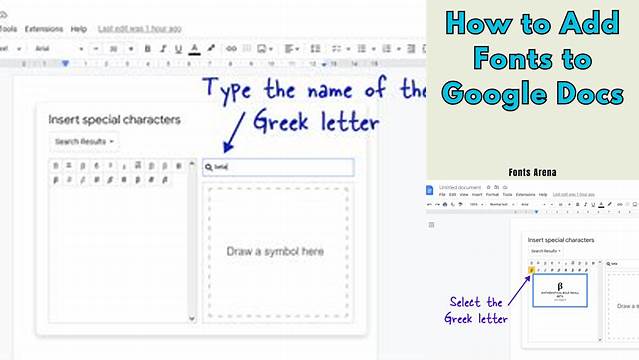
Greek Fonts In Google Docs: A How-To Guide
Hey guys! Ever needed to add a touch of ancient Greece to your Google Docs? Maybe you're writing a paper on the Odyssey, crafting a myth, or just want to spice up your document with some cool Greek-style fonts. Well, you're in luck! Google Docs makes it pretty easy to use Greek fonts, and I'm here to walk you through it. Let's dive in!
1. Understanding Greek Font Options in Google Docs
So, when we talk about Greek fonts in Google Docs, we're not just talking about one specific thing. There are a couple of ways to approach this. First, you could be looking for actual Greek alphabet fonts to write in the Greek language. Second, you might want fonts that look Greek – think decorative fonts with those classic, elegant vibes. Google Docs has options for both, so let's explore them. For those needing to write in actual Greek, Google Docs supports Unicode, meaning you can easily type in Greek using a Greek keyboard layout or character map. And for the aesthetically inclined, there are fonts that mimic Greek styles, perfect for headings, titles, or adding a thematic touch to your work. Understanding your needs is the first step in finding the perfect font.
2. How to Add Greek Letters Using Unicode
Adding Greek letters using Unicode is super straightforward. Unicode is a universal character encoding standard, meaning that pretty much every computer system recognizes it. Google Docs is no exception! To insert Greek letters, you've got a couple of options. The easiest way is to use the 'Insert special characters' feature. Go to 'Insert' > 'Special characters'. In the search box, type in the name of the Greek letter you need (like 'alpha,' 'beta,' 'gamma,' etc.). You'll see the letter pop up, and you can click it to insert it into your document. Another method is to use character codes. If you know the Unicode number for a particular Greek letter, you can type it in and then press Alt+X (or Option+X on a Mac) to convert it into the character. For example, typing '03B1' and then pressing Alt+X will give you the lowercase alpha (α). It might seem a bit technical at first, but once you get the hang of it, it's a very efficient way to add Greek letters to your document. Knowing these tricks can really save you time, especially if you're working with a lot of Greek text or mathematical symbols.
4. Using Special Characters for Greek Symbols
The 'Special characters' feature in Google Docs is a goldmine when you need Greek symbols. As mentioned before, navigating to 'Insert' > 'Special characters' opens up a world of possibilities. You can search for Greek letters by name, draw the symbol if you don't know the name, or even browse through categories. This is super helpful when you need to insert symbols like sigma (Σ), omega (Ω), or mu (Μ). The great thing about this feature is that it's built right into Google Docs, so you don't need to install anything or use external websites. Just a few clicks, and you've got your Greek symbol right where you need it. Plus, the search functionality is pretty robust, so you can usually find what you're looking for even if you're not sure of the exact name of the symbol. This is a must-know trick for anyone working with Greek text or mathematical equations in Google Docs.
5. Keyboard Shortcuts for Greek Letters in Google Docs
While Google Docs doesn't have built-in keyboard shortcuts specifically for Greek letters, you can create your own using your operating system's features. On Windows, you can use the Character Map to find the Unicode value of a Greek letter, and then use the Alt + [Unicode value] shortcut to insert it. For example, Alt + 945 will give you the lowercase alpha (α). On a Mac, you can enable the Greek keyboard layout in System Preferences > Keyboard > Input Sources. Once enabled, you can switch between your regular keyboard layout and the Greek one using the keyboard shortcut you've set up. This allows you to type directly in Greek. Another option is to use a text expansion tool. These tools allow you to assign a short abbreviation to a Greek letter, and then automatically replace the abbreviation with the letter when you type it. For instance, you could set 'alpha' to automatically turn into 'α'. This can be a huge time-saver if you frequently use Greek letters in your documents. Customizing your keyboard shortcuts is all about finding what works best for you and streamlining your workflow.
6. Exploring Greek Font Styles: Serif, Sans-serif, and Decorative
When choosing Greek font styles, you'll generally encounter three main categories: serif, sans-serif, and decorative. Serif fonts, like Times New Roman, have small decorative strokes at the end of each letter, giving them a classic and formal look. They're often used for body text because they're easy to read in large blocks. Sans-serif fonts, like Arial or Helvetica, lack these strokes and have a cleaner, more modern appearance. They're great for headings, titles, and situations where you want a more minimalist feel. Decorative fonts, on the other hand, are all about style and visual impact. They come in a wide variety of designs, from elegant scripts to bold, attention-grabbing styles. When selecting a Greek font, consider the overall tone and purpose of your document. A serif font might be perfect for a scholarly paper on Greek history, while a sans-serif font could be ideal for a modern presentation about Greek mythology. And a decorative font could add a touch of flair to an invitation for a Greek-themed party. The key is to choose a font that complements your content and enhances the reader's experience.
7. Finding Free Greek Fonts Online
Looking for free Greek fonts online can be a bit of a treasure hunt, but there are some great resources out there. Websites like Google Fonts, Font Squirrel, and DaFont offer a wide selection of fonts, including those with Greek character sets or Greek-inspired designs. When downloading fonts from these sites, be sure to check the license to make sure you're allowed to use them for your intended purpose (e.g., personal or commercial use). Also, it's a good idea to preview the font and download a sample to make sure it meets your needs and is compatible with Google Docs. Keep in mind that the quality of free fonts can vary, so it's worth spending some time to find a well-designed and complete font. To add a font to Google Docs, you'll first need to download it to your computer. Then, upload it to your Google Drive and open it with Fontself Maker (if it is supported). Alternatively, some sites allow direct integration of fonts with Google Docs, making the process even easier. With a little bit of searching, you can find some fantastic free Greek fonts to enhance your documents.
8. Using Greek Fonts for Headings and Titles
Using Greek fonts for headings and titles can add a touch of elegance and sophistication to your documents. A well-chosen Greek-inspired font can instantly catch the reader's eye and create a sense of visual appeal. When selecting a font for headings and titles, consider the overall style and tone of your document. A bold, decorative font might be perfect for a title that needs to stand out, while a more subtle serif font could be a better choice for headings within the body of the text. Also, pay attention to the size and spacing of the font. You want to make sure that the headings and titles are easy to read and visually distinct from the rest of the text. Experiment with different font combinations to see what works best for your document. For example, you could use a Greek-inspired font for the main title and a simpler sans-serif font for the headings. The key is to create a visual hierarchy that guides the reader through your document and highlights the important information.
9. Creating Greek-Themed Documents in Google Docs
Creating Greek-themed documents in Google Docs is a fun way to immerse your readers in the world of ancient Greece. Start by choosing a Greek-inspired font for your headings and titles. Then, incorporate Greek symbols and imagery throughout the document. You could use images of Greek architecture, mythology, or historical figures to add visual interest. Consider using a color palette that evokes the colors of Greece, such as blues, whites, and golds. When writing the text, try to use language that is consistent with the Greek theme. For example, you could use Greek terms or phrases, or reference Greek mythology or history. You can also use formatting techniques to enhance the Greek theme. For instance, you could use borders or dividers that resemble Greek patterns. The goal is to create a document that is not only informative but also visually appealing and engaging. By paying attention to the details, you can create a truly immersive Greek-themed experience for your readers.
21. Adding Diacritics to Greek Letters in Google Docs
Adding diacritics to Greek letters in Google Docs is essential for accurate and proper Greek writing. Diacritics are marks added to letters to indicate pronunciation or stress. In Greek, common diacritics include the acute accent (ά), the grave accent (ὰ), and the circumflex (ᾶ), as well as the diaeresis (ϊ) and combinations thereof. To add diacritics in Google Docs, you can use the 'Insert special characters' feature. Search for the specific letter-diacritic combination you need. For example, search for